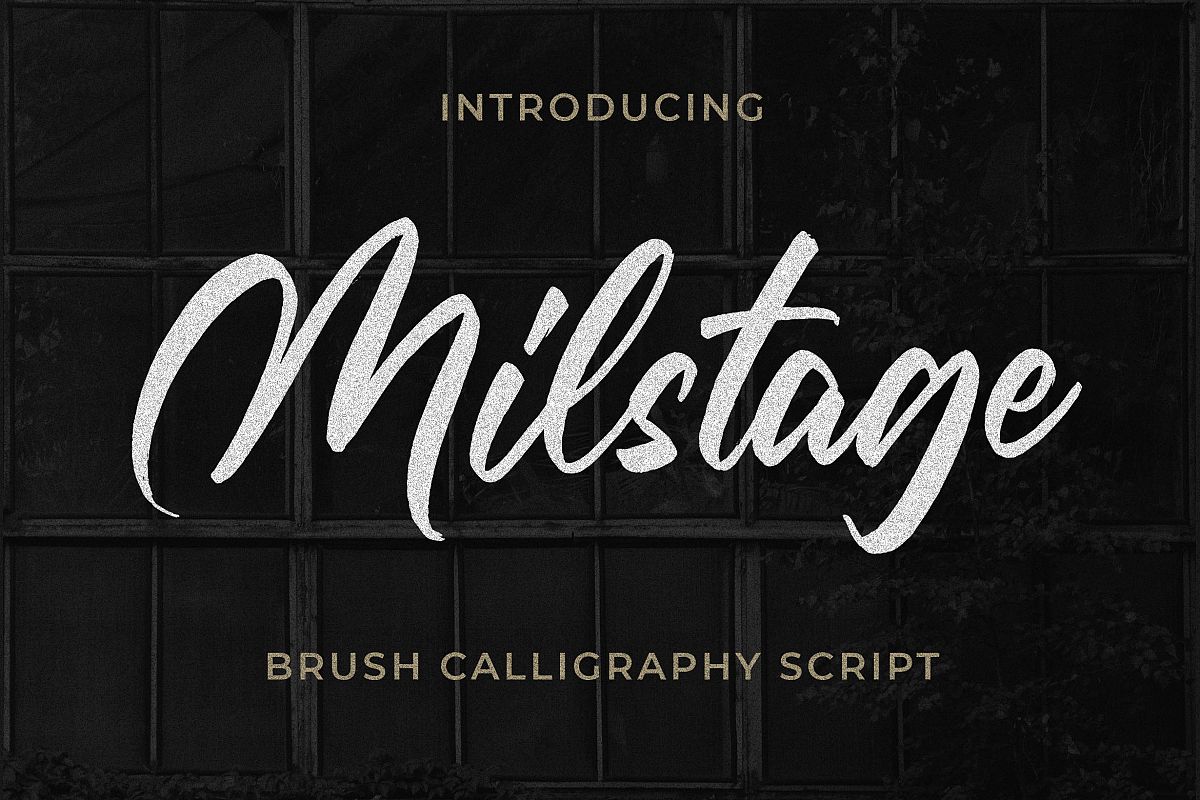
Milstage - Brush Calligraphy Script
Introducing of our new product the name is Milstage Brush Calligraphy Script Font. Milstage inspired by Brush calligraphy this font is a fun theme very good for signature, poster, fashion, wedding, branding etc